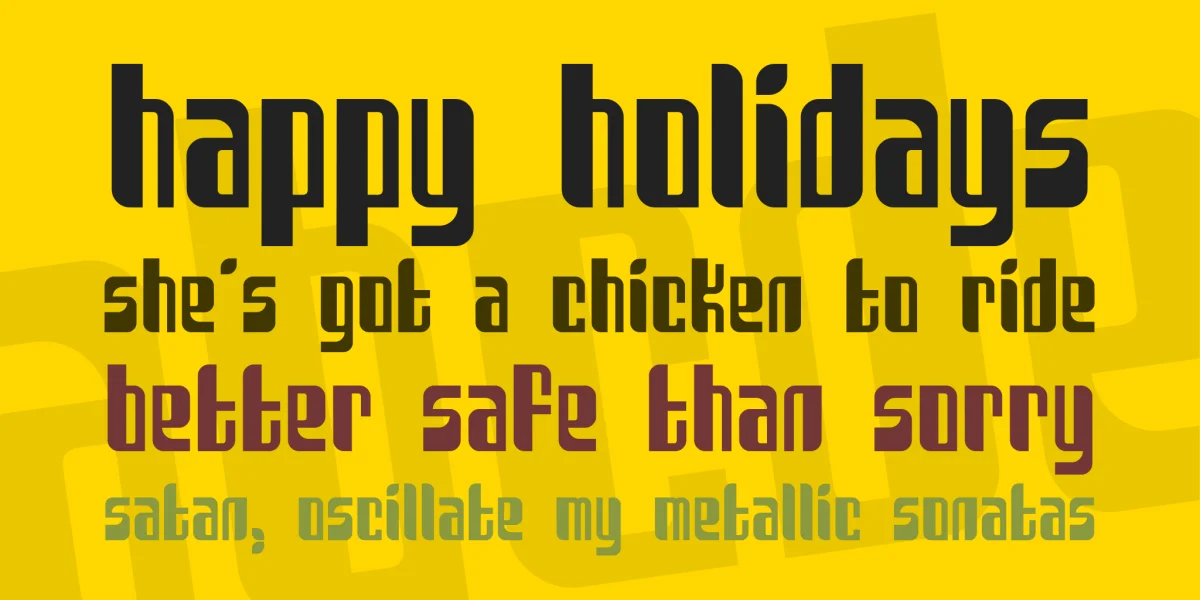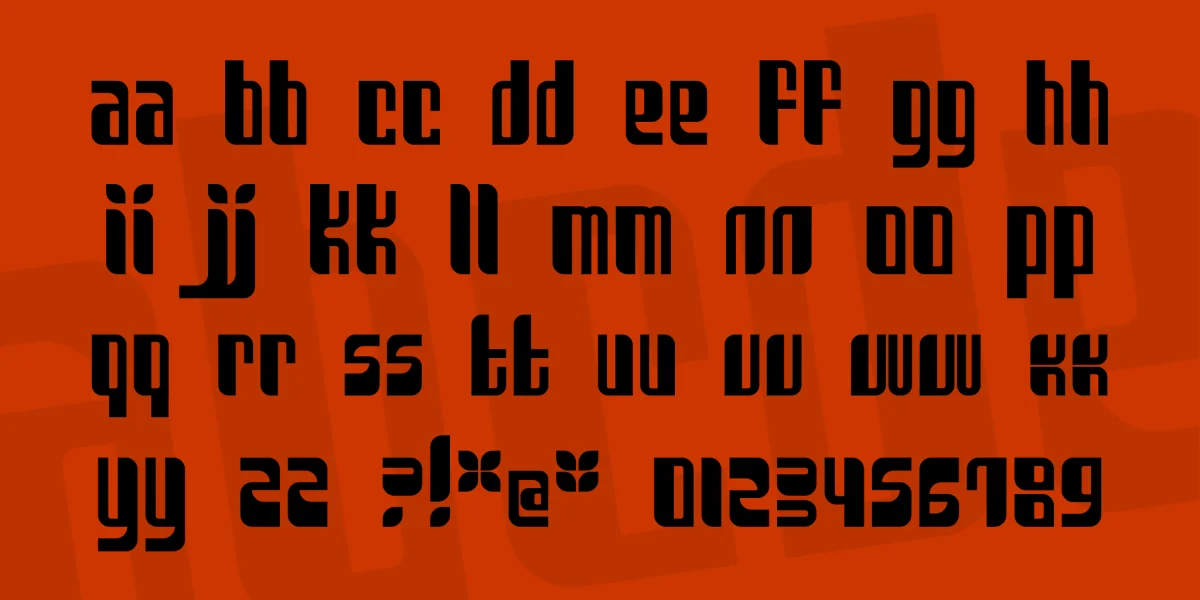
Sanka used to be an instant coffee when I was a kid. Now it is a cool font. This font was created only in lowercase. There are numbers and some punctuation though.